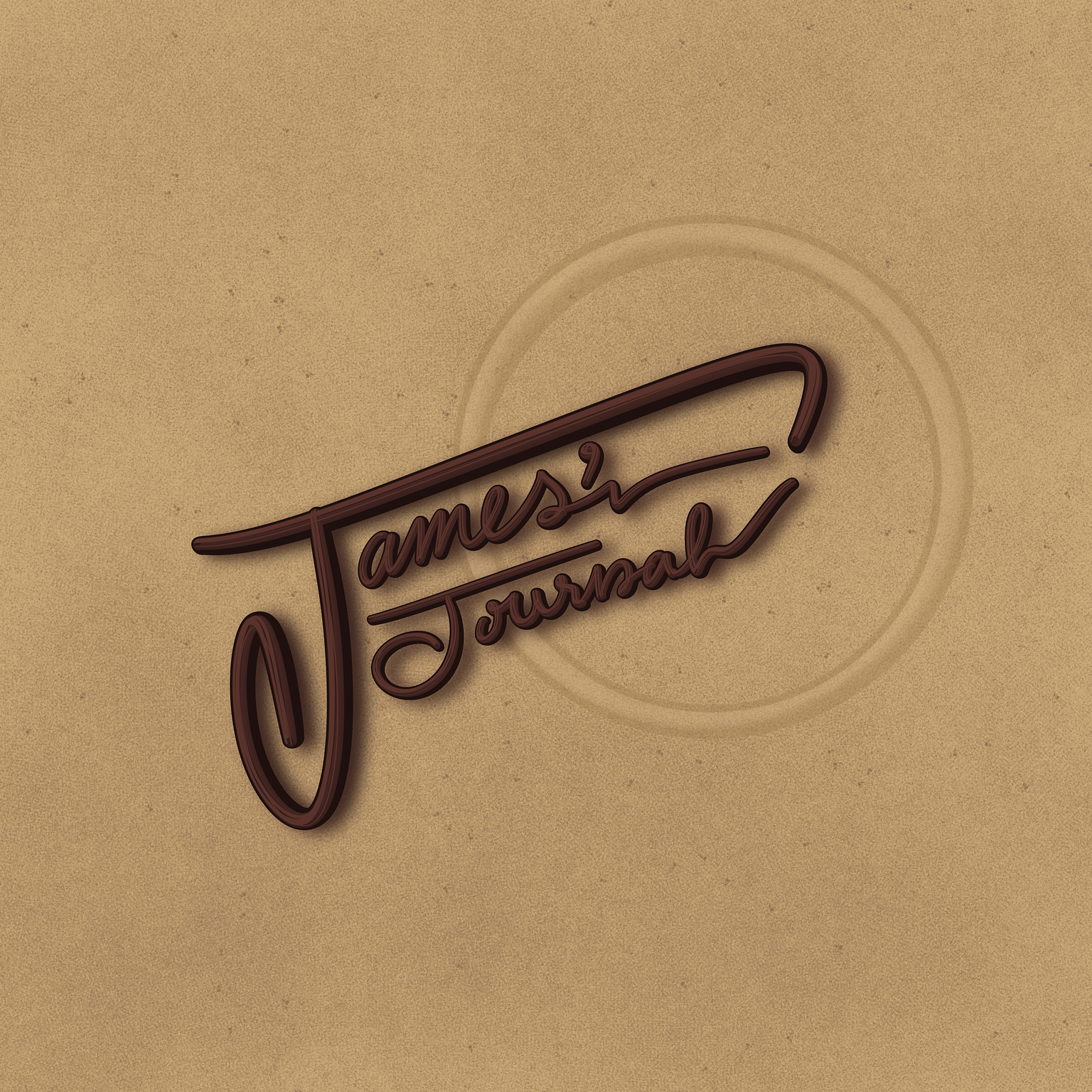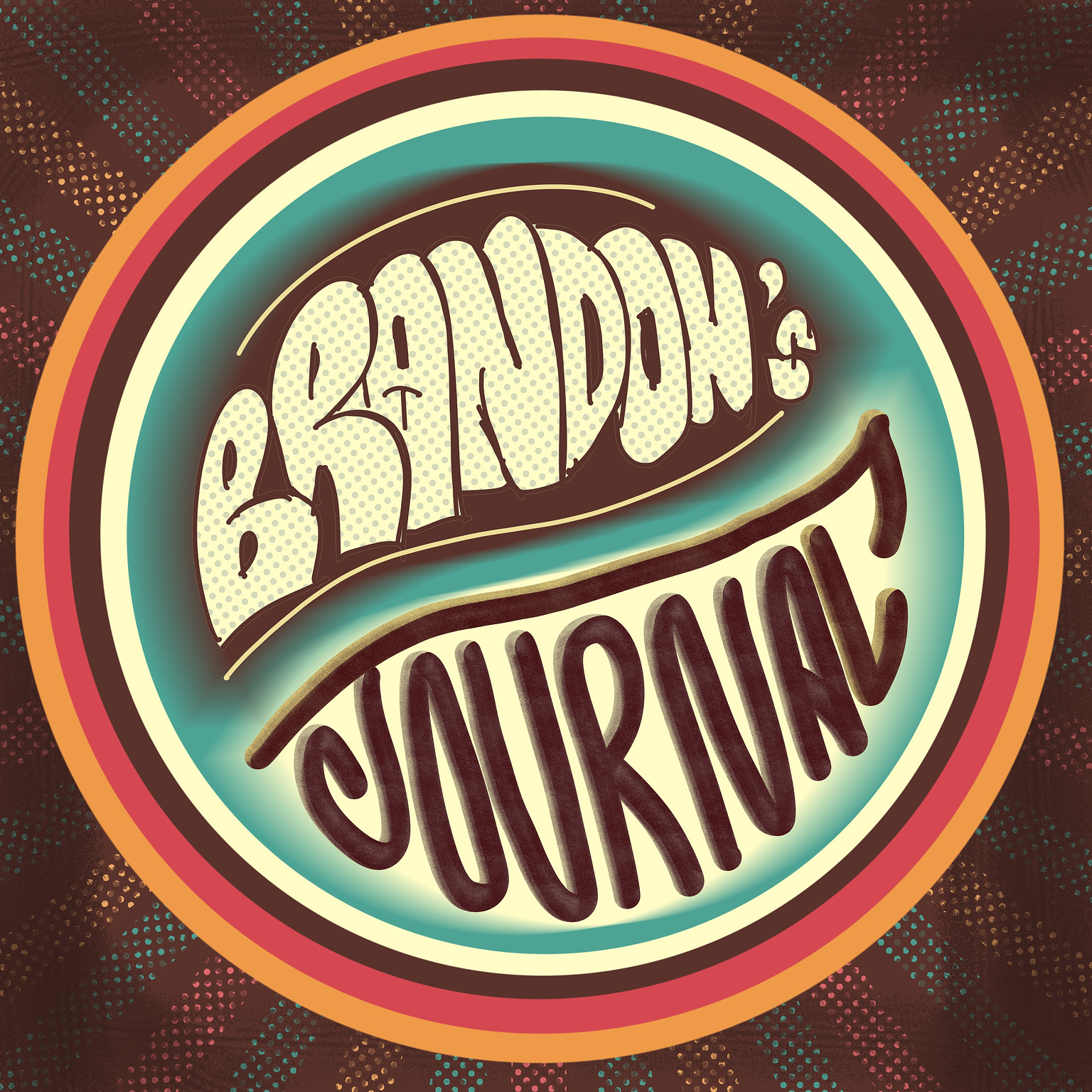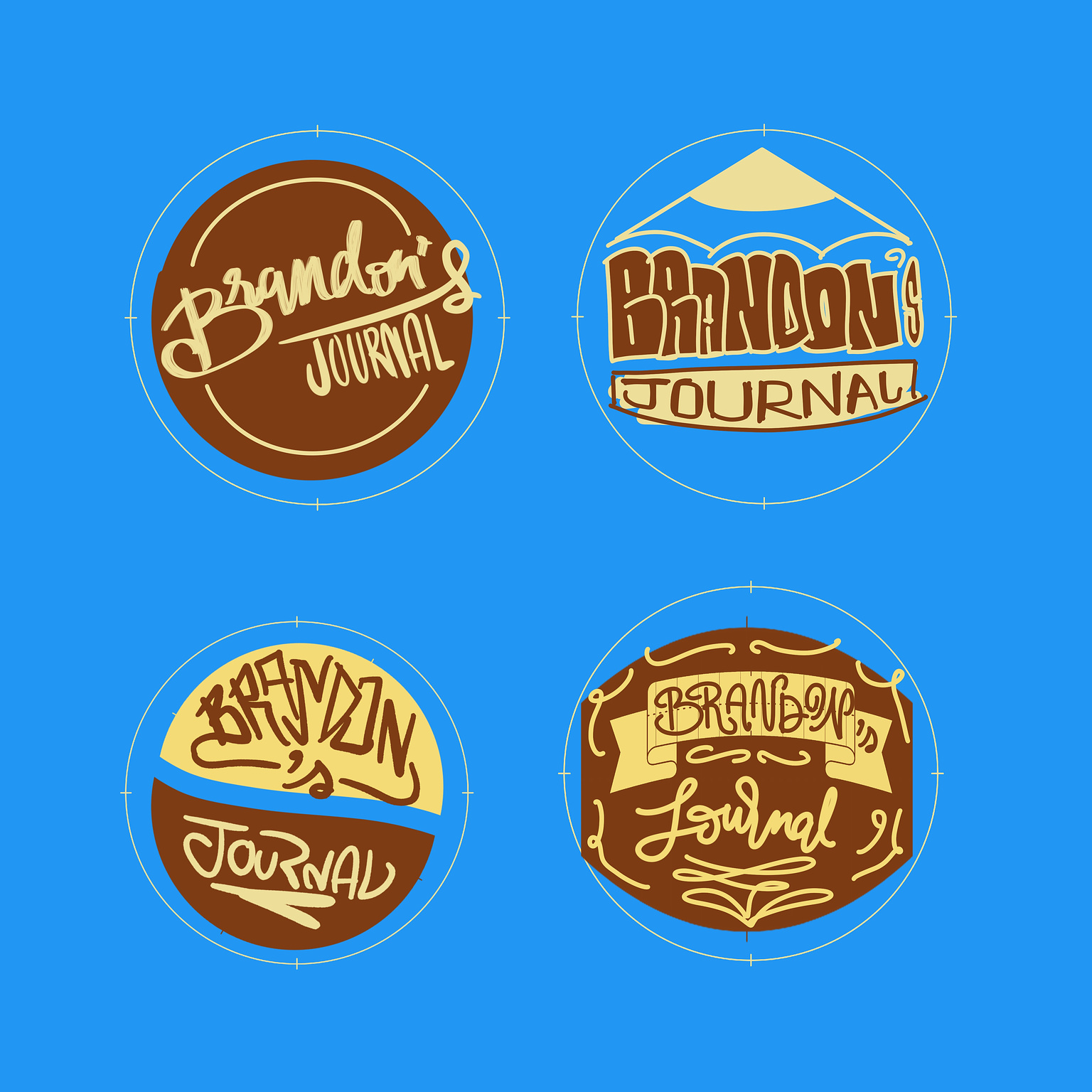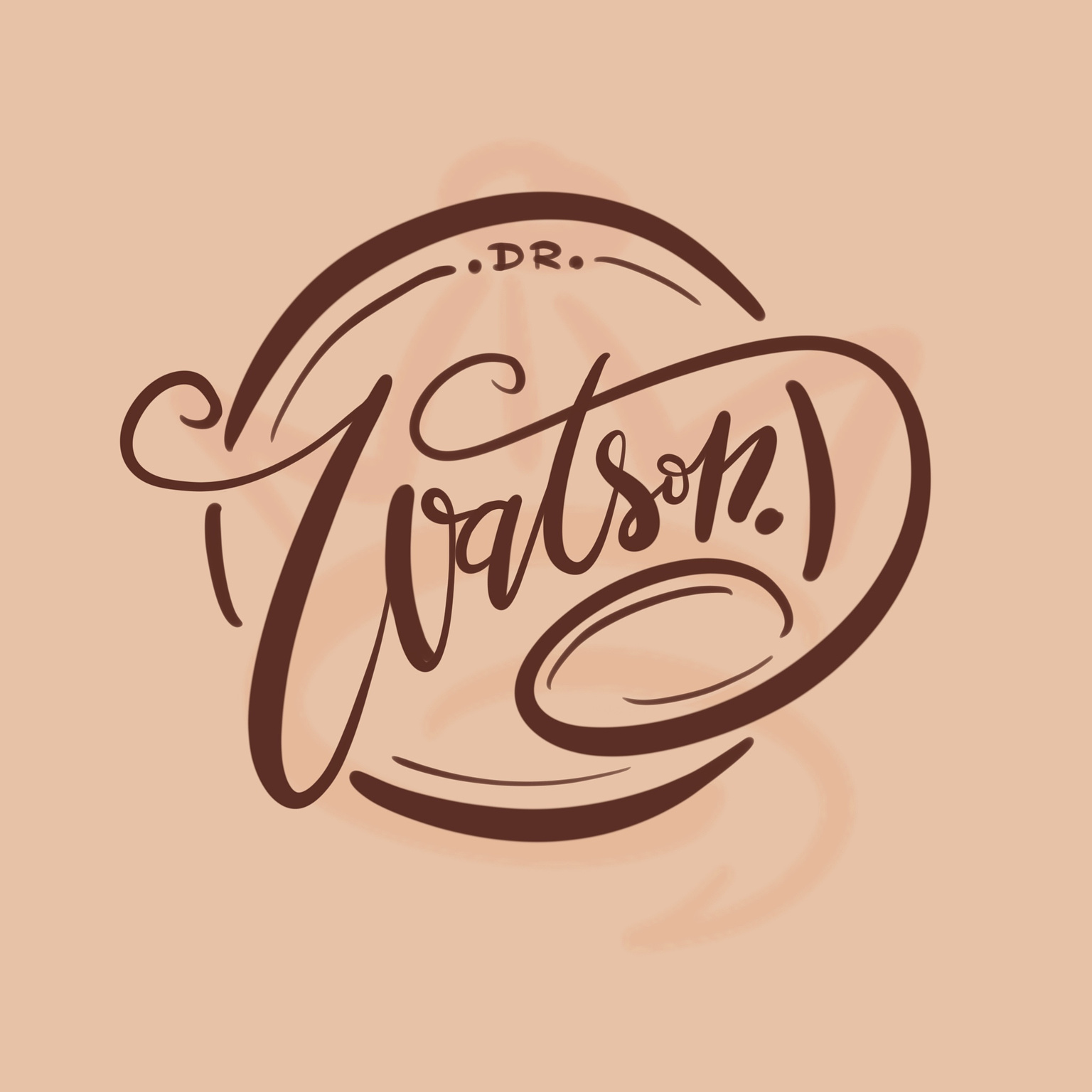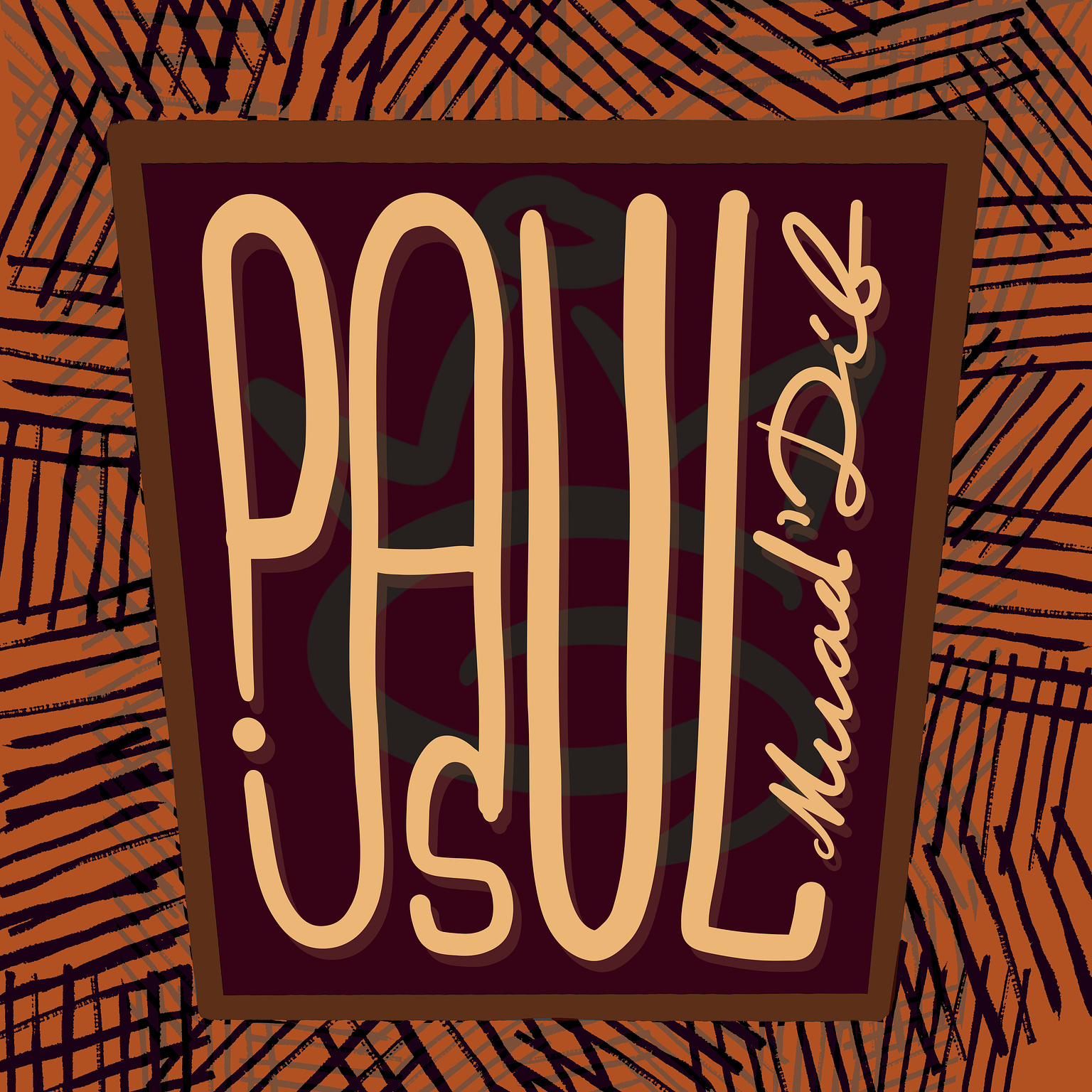
Get a cool lettering design for your name!
I will transform your chosen name—in English or Thai alphabets—into a simple yet attractive design suitable for a profile picture or a signature.
Coming up with design ideas yourself can be challenging, so I will provide you with at least three variations in different type of styles as image samples. You can also pick the colors for both the name and the background, as well as a square or rectangle image.
The most common styles that may be included are:
1. Cursive style: handwriting with cursive type, with
decorative elements when appropriate.
2. Simple
style: characters with equal width and height, without
decorations.
3. Cute Style: Add a face, a heart,
or whatever is appropriate.
4. Creative Style:
more liberty to manipulate letters for aesthetic. Harder to read but
cool to look at.
Please note that each character is hand-drawn
without rulers, fixed guidelines, or fonts, so they may not be
perfectly neat. Moreover, since every letter has its own unique
characteristics, it's difficult to determine the best style and
alignment for your name. However, I will do my best to provide
you with various styles so you can see which ones suit you best.